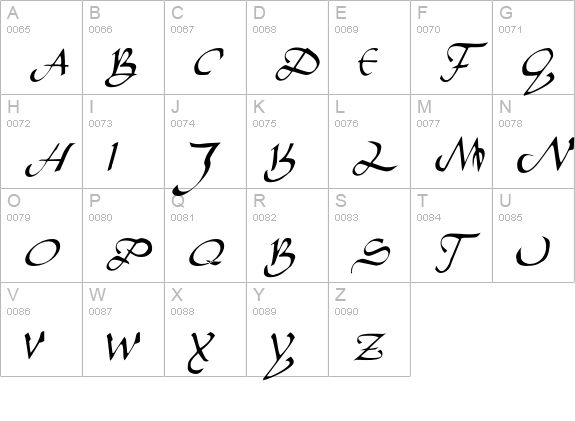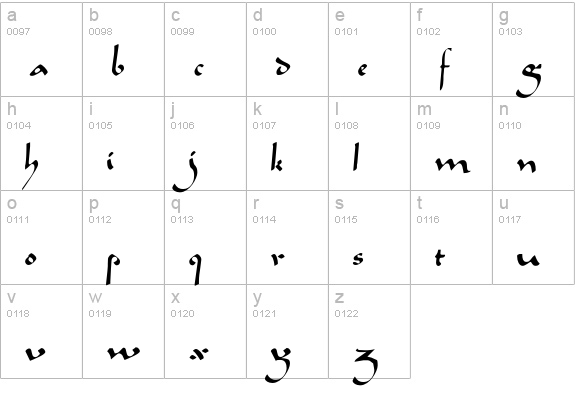
Caliph Font Details
Caliph font is a stunning display typeface that exudes elegance and sophistication. With its intricate details and stylish curves, Caliph font is perfect for creating eye-catching designs that demand attention. This versatile font can be used for a variety of projects, from logos to branding, invitations to posters. What makes Caliph font even more appealing is that it is available for free download at FontsMarket.com. This means you can easily access and use this beautiful font in your projects without any cost. Don't miss out on the opportunity to add Caliph font to your font collection and elevate your design work to the next level. Download Caliph font today and let your creativity shine!